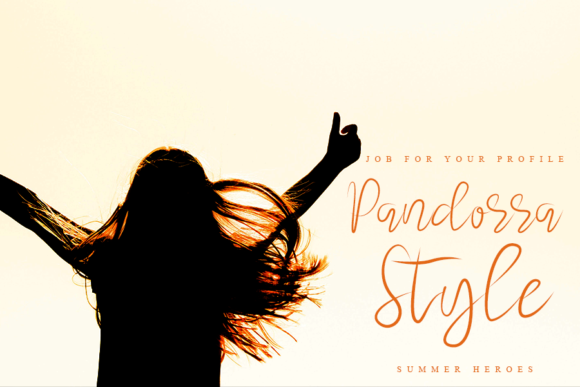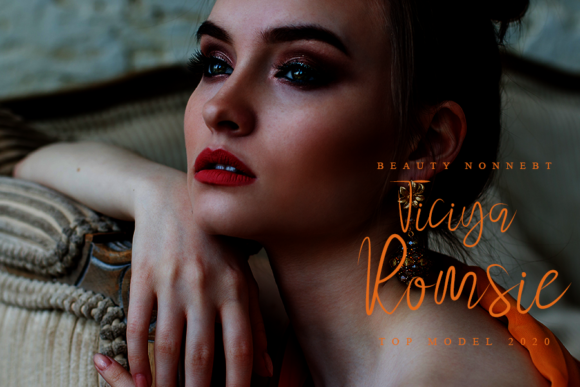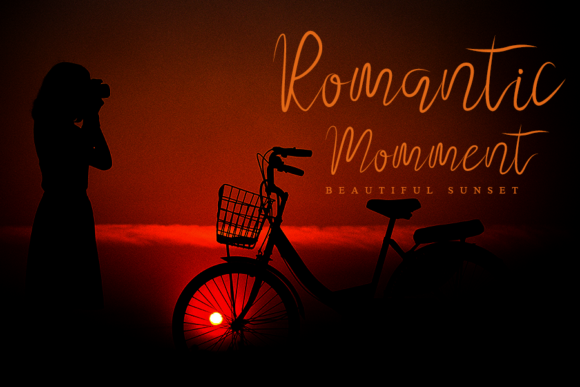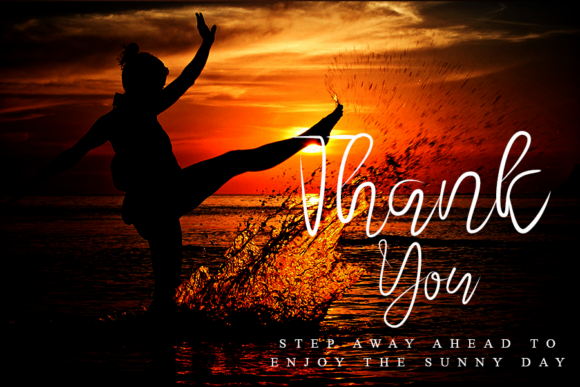
The Font that Stole My Heart: A Deep Dive into Abraham Font
I still remember the design project that led me to discover the Abraham font. I was working on a wedding invitation suite, and my client had a very specific vision: elegant, yet playful, with a touch of whimsy. I had spent hours scouring font libraries, but nothing seemed quite right. That was when I stumbled upon Abraham, and it instantly felt like “the one.” Its friendly, casual vibe was exactly what I needed to bring my client’s vision to life.
An Honest Review of Abraham Font
So, what makes Abraham so special? Let’s dive into the good stuff and a few quirks I’ve discovered along the way.
• ✨ Incredibly friendly feel: Abraham has a warmth to it that’s hard to find in digital fonts. It’s like the typographic equivalent of a warm hug.
• ✅ Versatility: This font can elevate a wide range of projects, from branding and headings to wedding designs, invitations, and more.
• ✅ Unique style: Abraham brings a fresh take to classic typography, making it perfect for designers looking for something that stands out.
• ✅ Ease of use: Whether you’re a seasoned pro or just starting out, Abraham is easy to work with and looks great in various contexts.
While Abraham is an amazing font, there are a few things to keep in mind:
• ⚠️ Legibility at small sizes: Like many script fonts, Abraham can get a bit fuzzy at very small sizes. It’s best used at larger sizes for maximum impact.
• 🤔 Pairing with other fonts: While Abraham is stunning on its own, finding the perfect pairing font can take some experimentation. Look for fonts with a similar warmth and playfulness.
The Story Behind Abraham Font
While the exact origins of Abraham might be shrouded in mystery, it’s clear that it was designed with love and a deep understanding of typography. The creator’s inspiration likely came from classic scripts, aiming to craft a font that’s both timeless and refreshingly modern.
A: While Abraham is stunning, it’s primarily designed for headings and titles. For body text, consider a more straightforward font for readability.